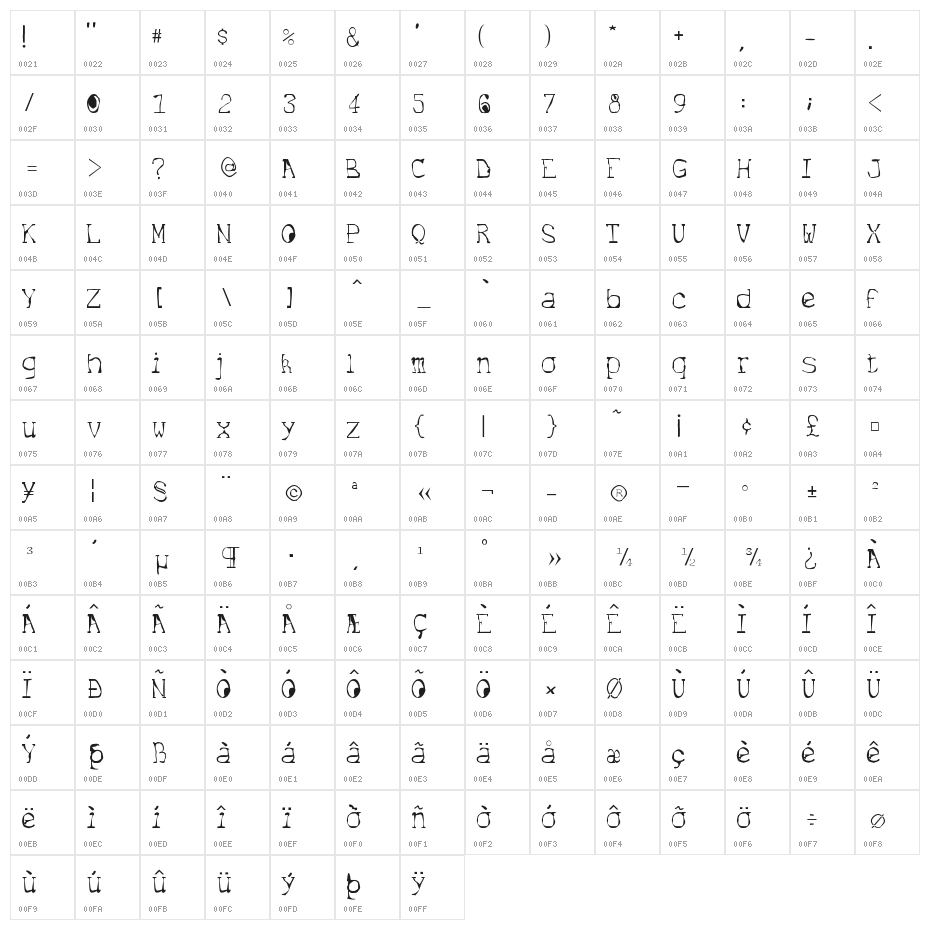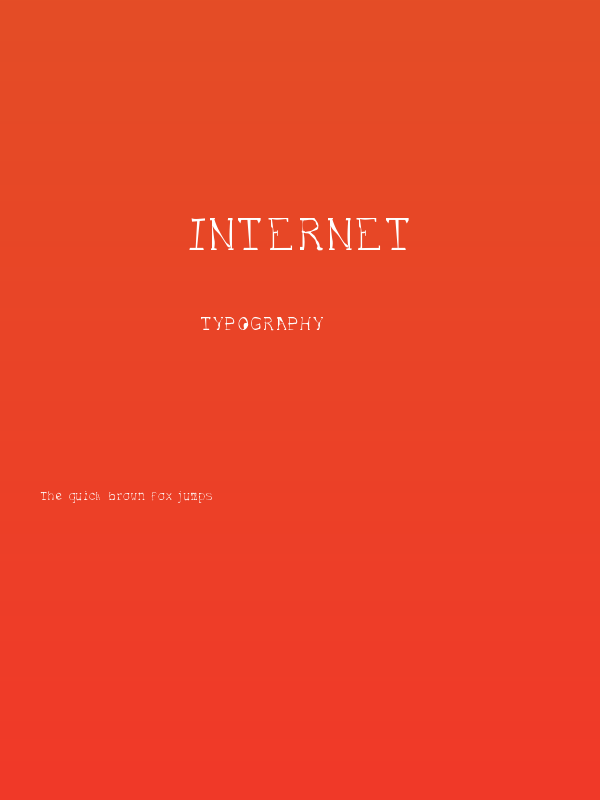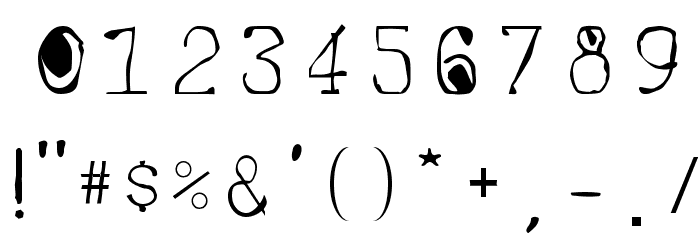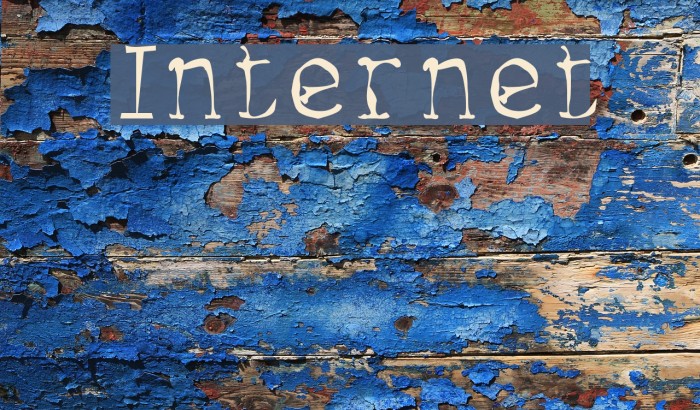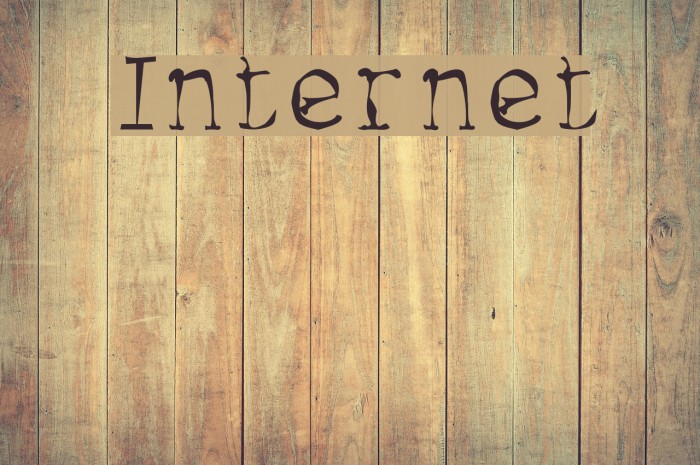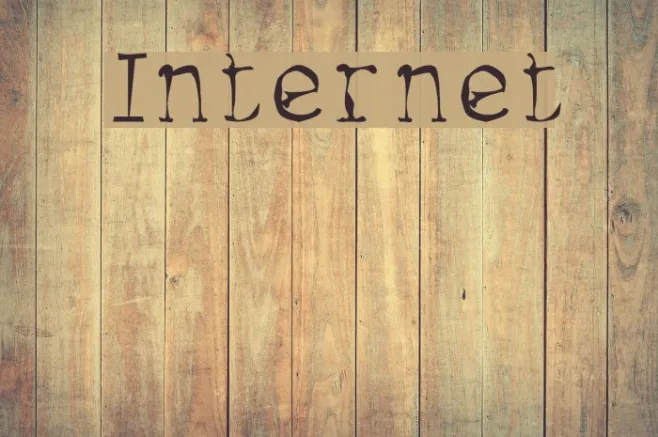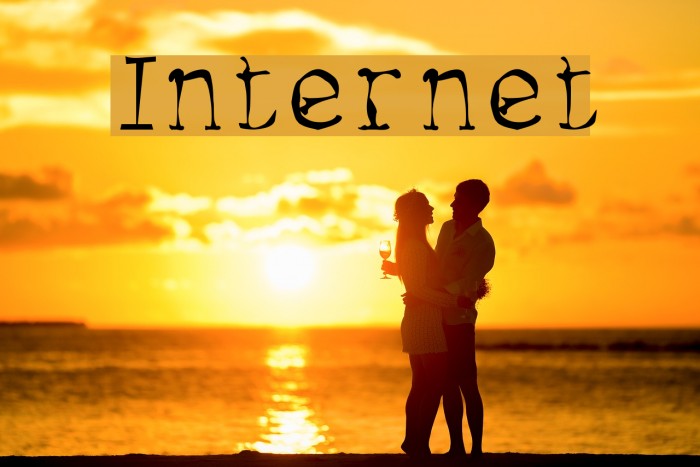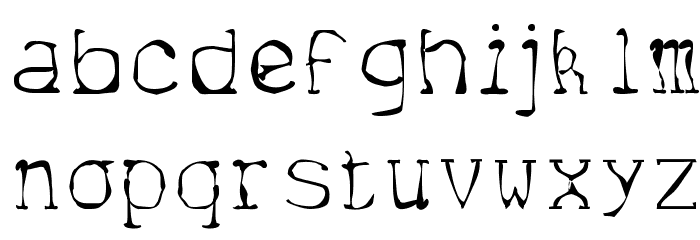
Internet Font
Internet Description
This font exhibits a unique and artistic style, characterized by its irregular and playful letterforms. Each character appears hand-drawn with varying stroke thickness, giving it a whimsical and slightly chaotic appearance. The uppercase letters are bold and prominent, while the lowercase letters maintain a consistent yet quirky design. Numbers and special characters follow the same artistic theme, adding to the font's overall charm. The font's distinctive style makes it stand out, with each letter having its own personality, making it ideal for creative and unconventional design projects.
| Overall Style | Artistic and playful |
| Use Case | Headlines, Artistic projects, Branding |
| Proposed Projects | Ideal for creative projects such as posters, album covers, children's books, and artistic branding. |